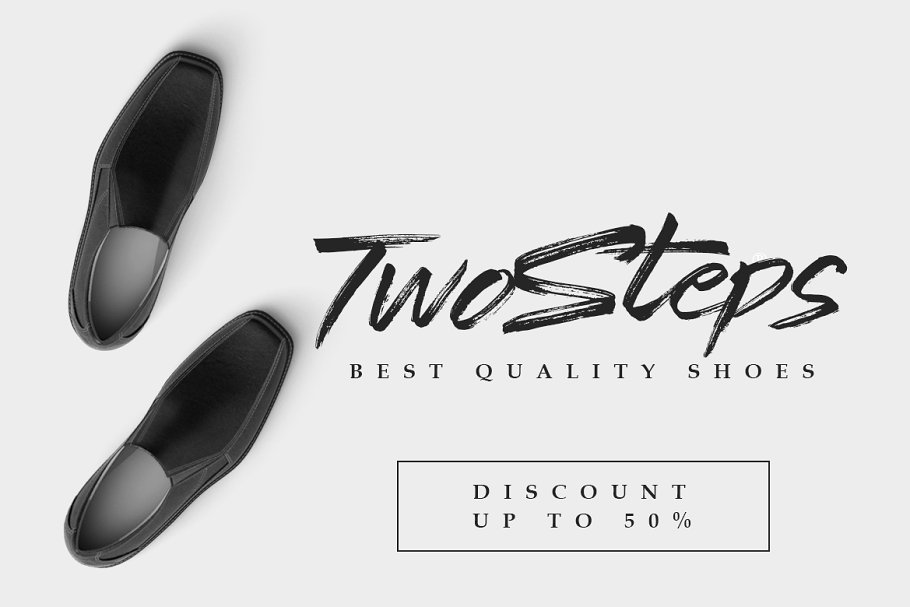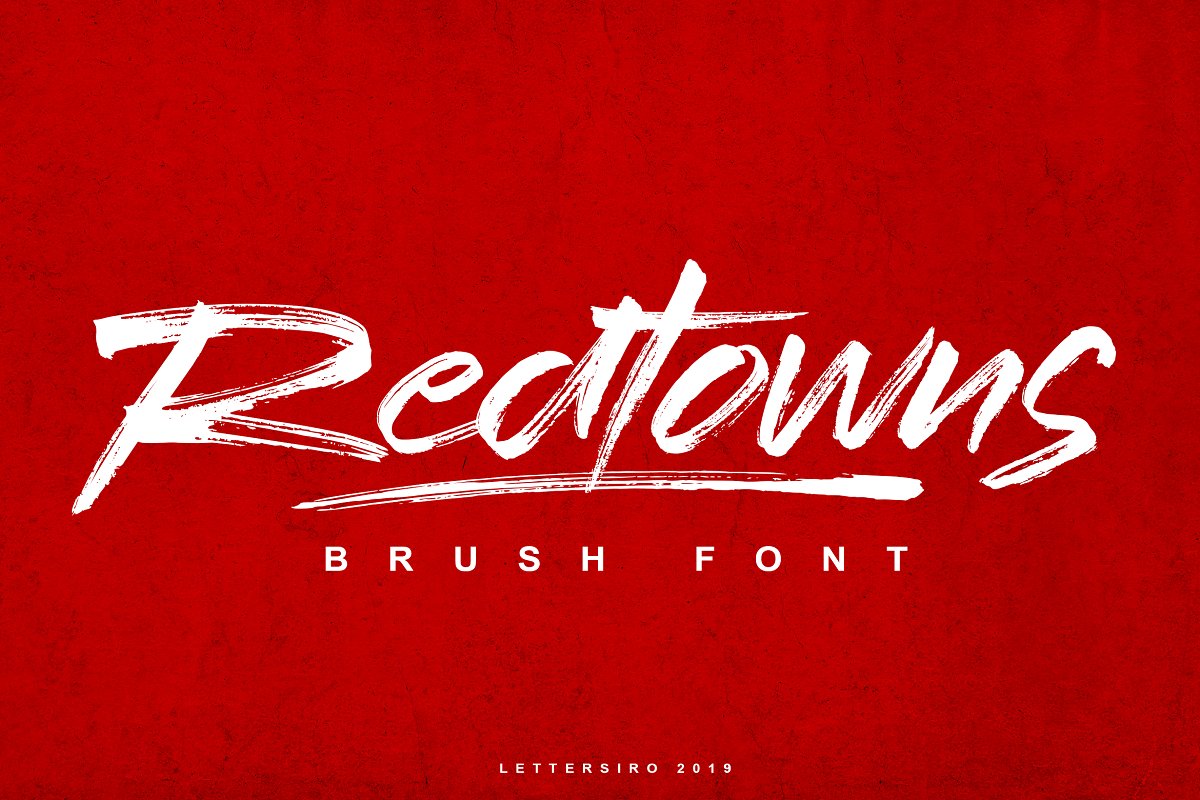
Redtowns Font
Hi Guys, Redtowns is our newest font that made manually using brush pen and paper. This font is great for nowdays project like clothing, signature, watermark, photograpy, poster, branding. Redtowns also come with underline swashes than perfectly can be paired. Just do with your own creativity, this is easy use font, will make your project easier.